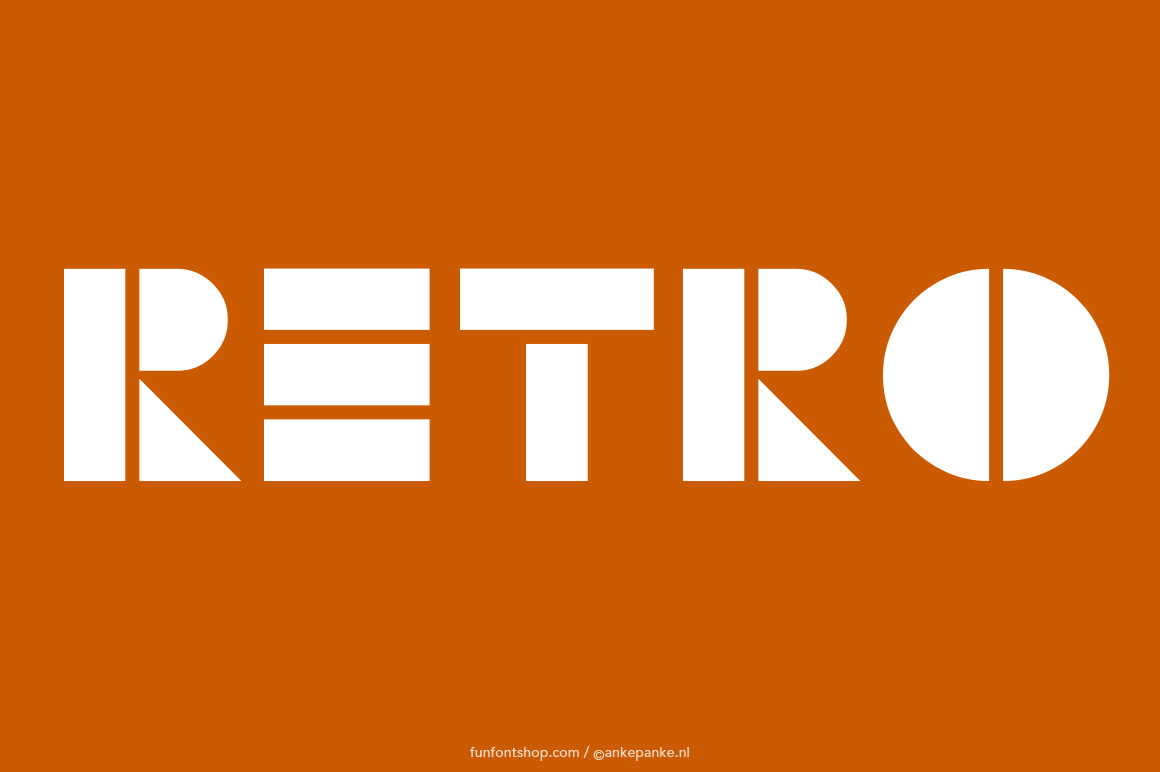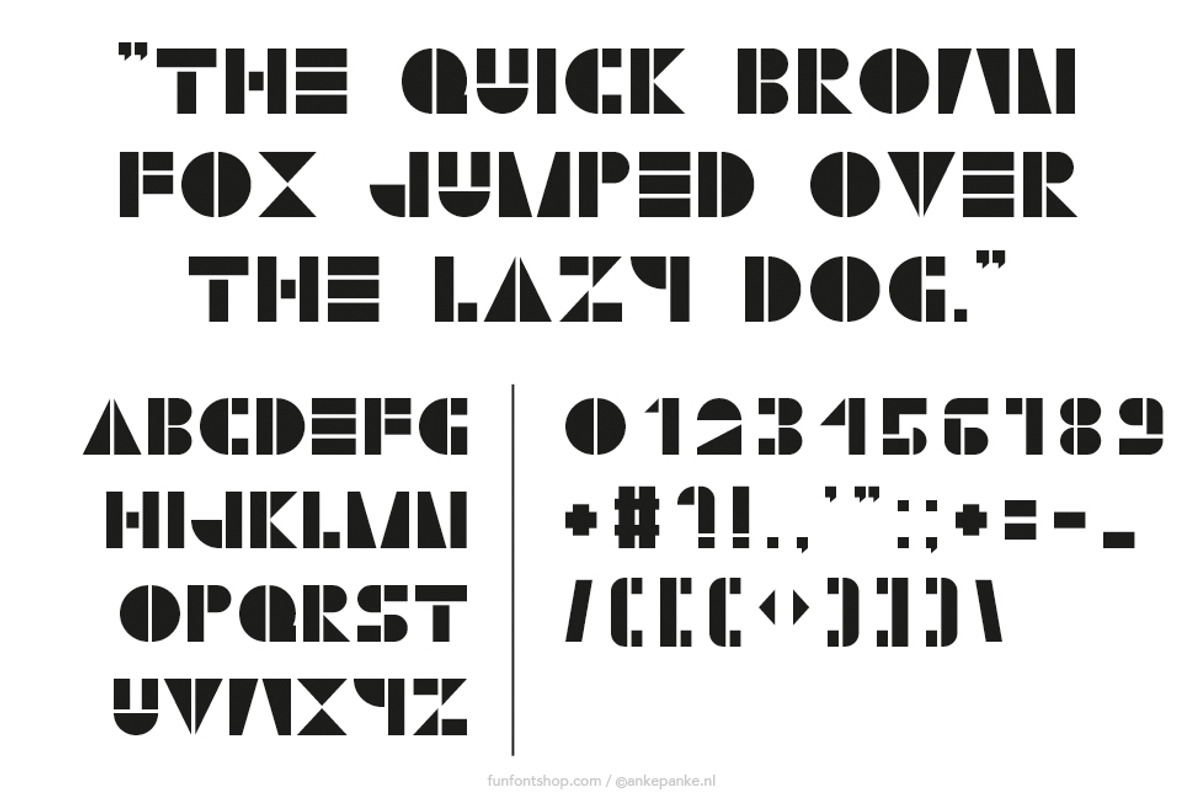
Retro font
Retro letters with a tangram feeling. This font is created digitally, so big or small: it's always clean.
- Letters uppercase and numbers
- Punctuation ?!,.:;‘“+=#/([])